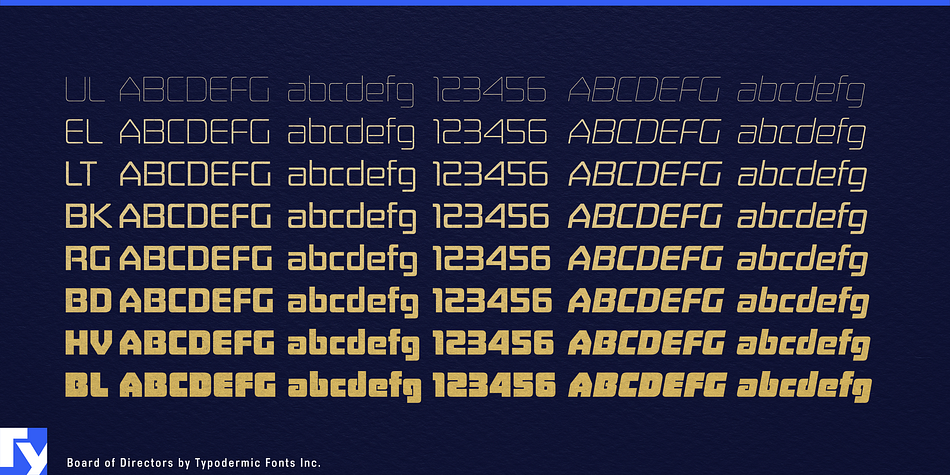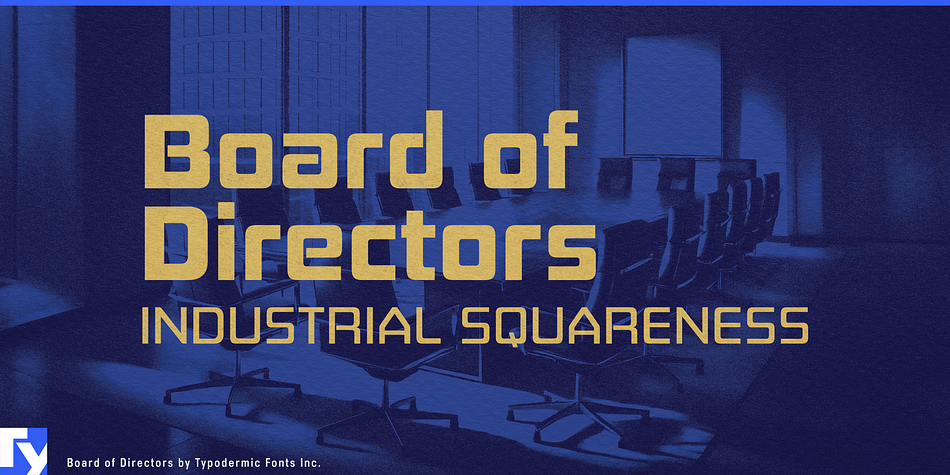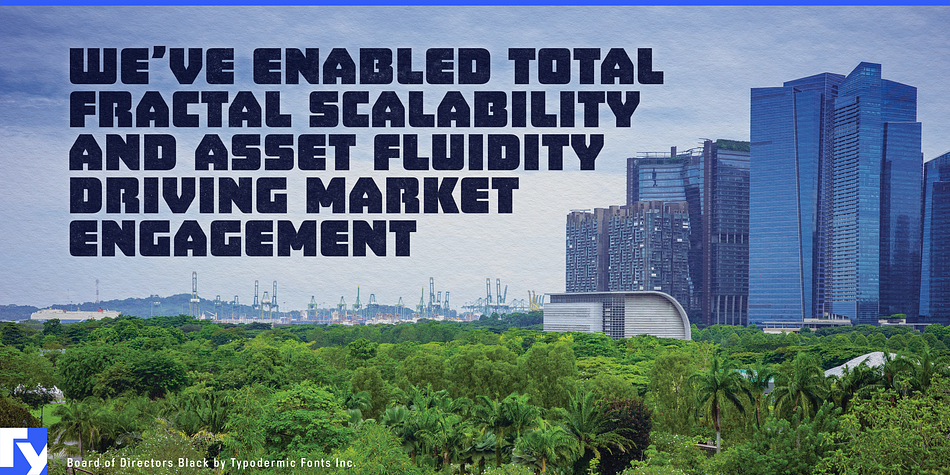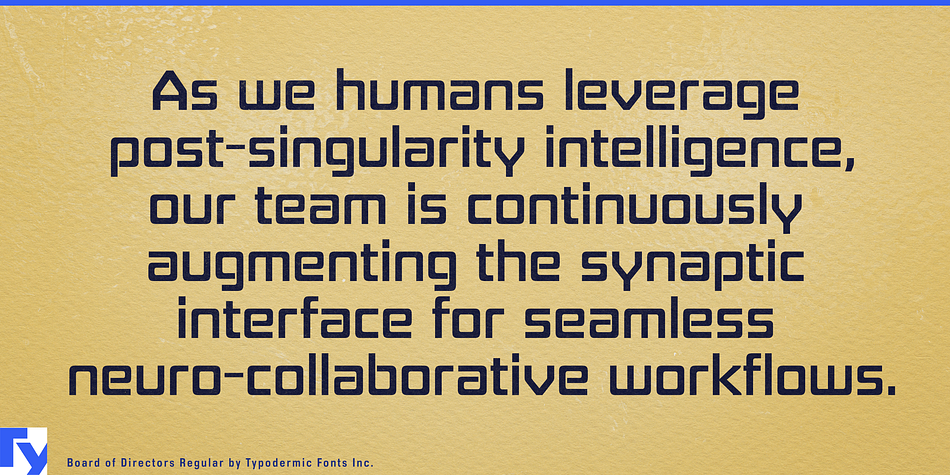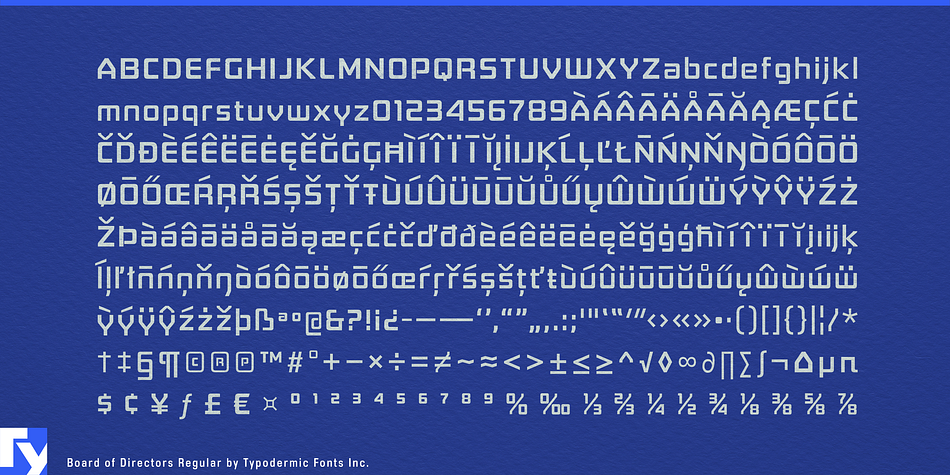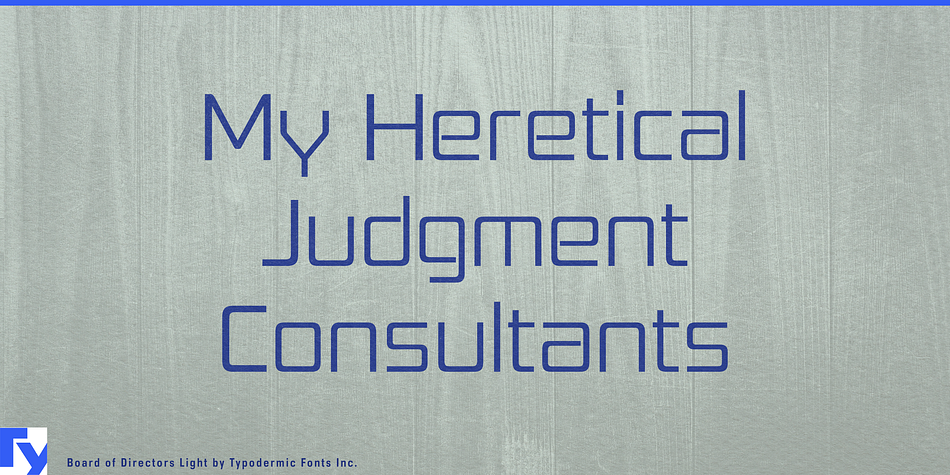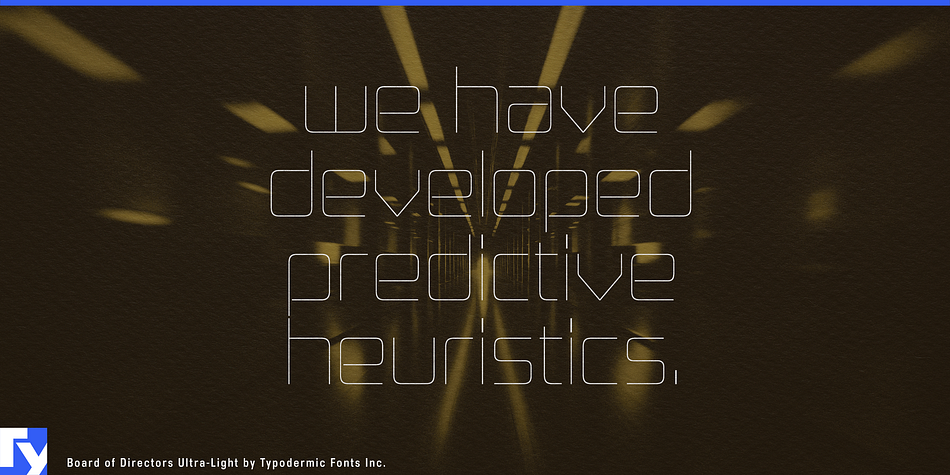
Board of Directors is a display sans font family. This typeface has sixteen styles and was published by Typodermic Fonts Inc.
The Board of Directors is a square, industrial display typeface. The tight curves and large x-height were inspired by hi-tech logotypes of the 1970’s. The Board of Directors is available in Ultra-Light, Extra-Light, Light, Book, Bold, Heavy, Black and italics.